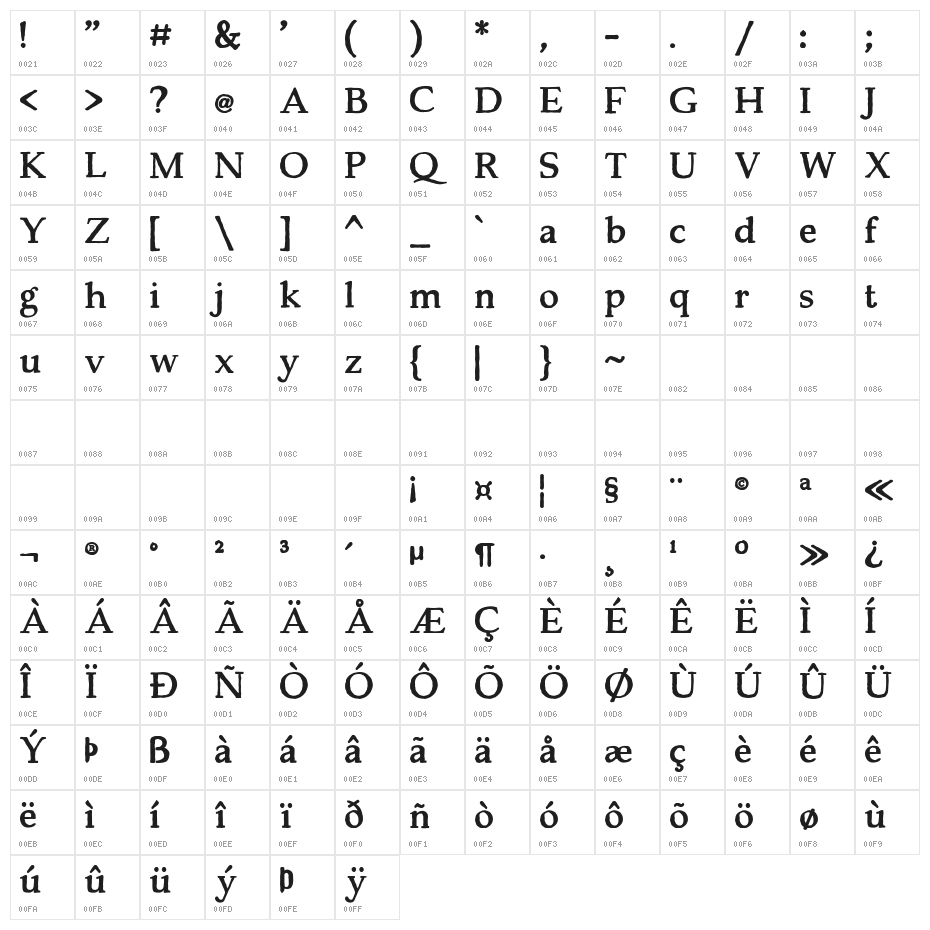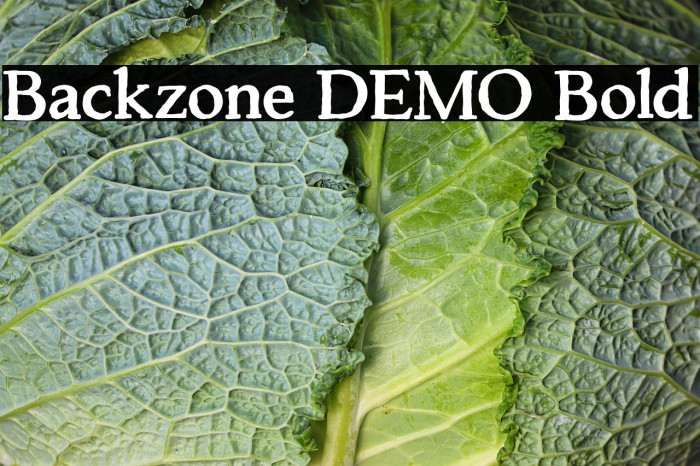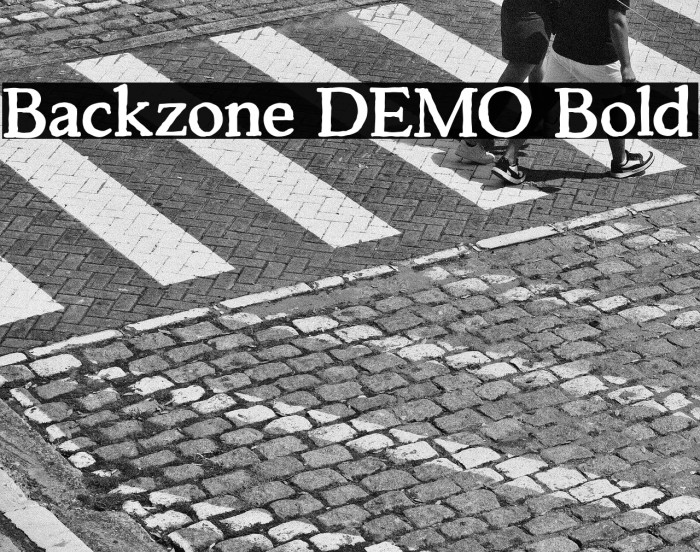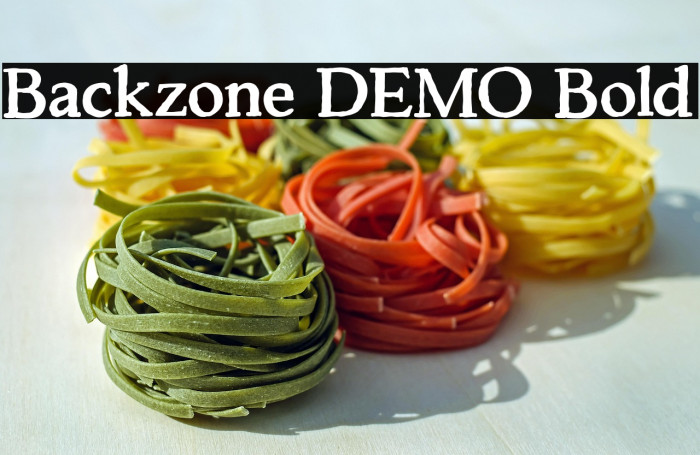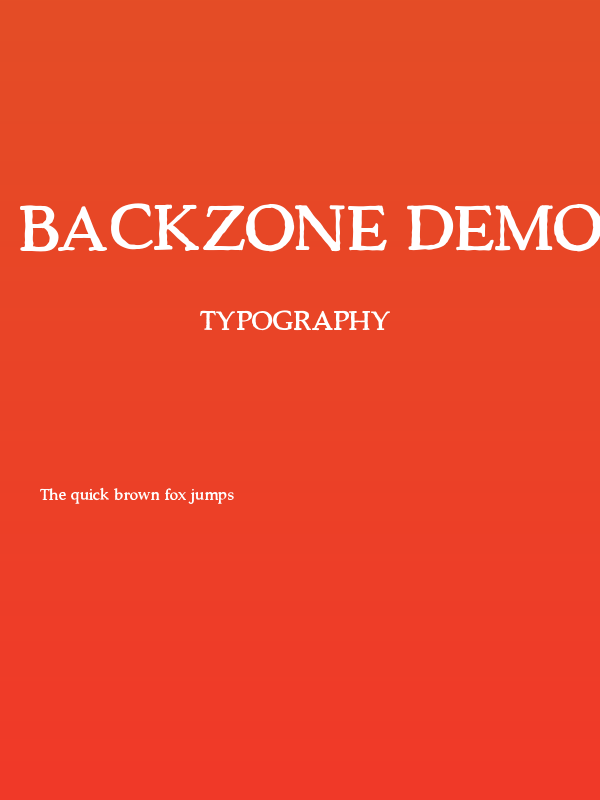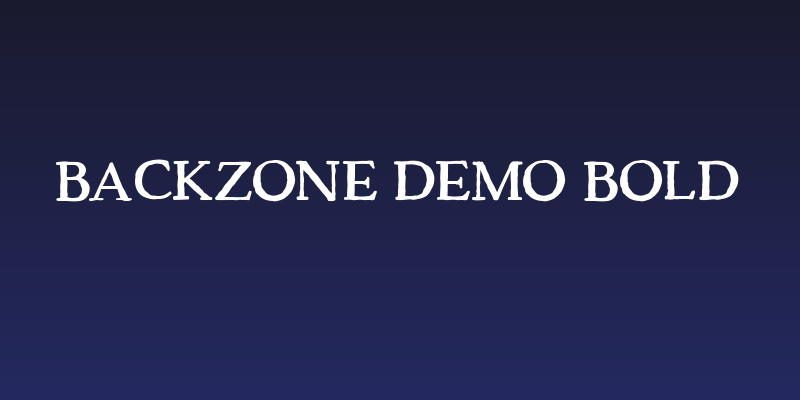
Backzone DEMO Bold Font
Backzone DEMO Bold Description
This font features a bold and dynamic style with a distinct serif design. The characters are well-defined with a slightly rough texture, giving it a handcrafted appearance. The uppercase letters are prominent and commanding, while the lowercase letters maintain a consistent flow. The numerals are clear and easy to read, and the special characters are uniquely styled to match the overall aesthetic. This font's boldness and unique texture make it stand out, suitable for projects that require a strong visual impact.
| Proposed Projects | Ideal for branding, poster design, book covers, and any project requiring a bold, artistic touch. |